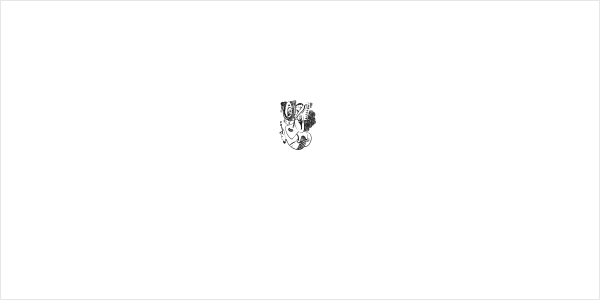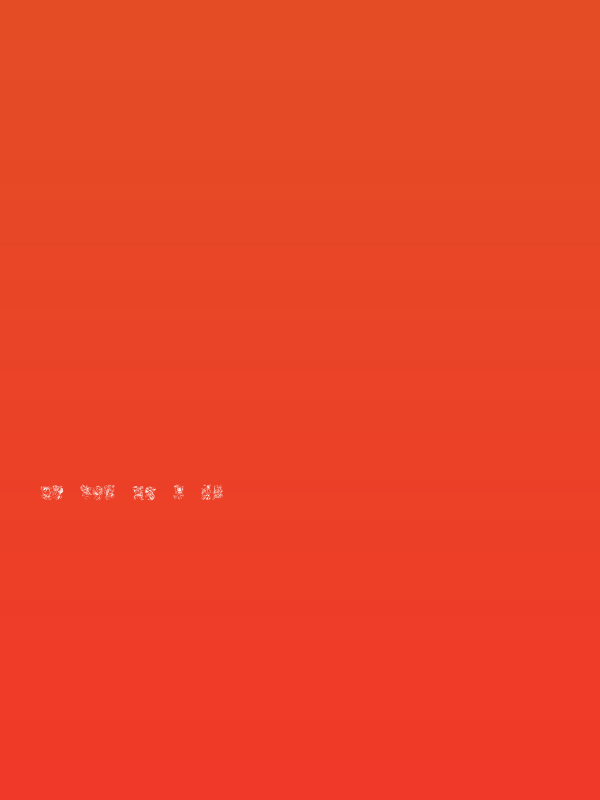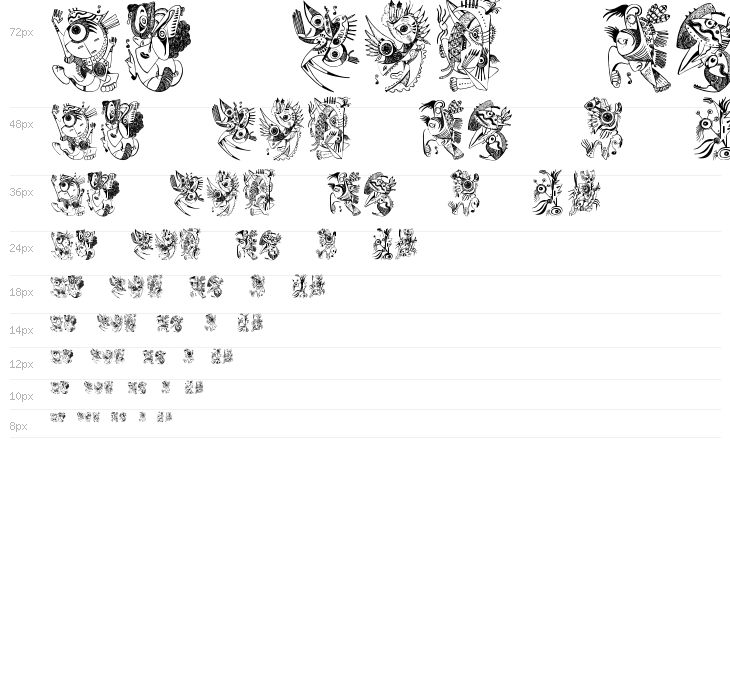
Z-Most Eye 1 Font
Z-Most Eye 1 Description
This font is a highly decorative and artistic representation of the alphabet, where each character is intricately designed with abstract and whimsical elements. The letters are composed of various patterns, shapes, and motifs that give them a unique and playful appearance. The style is reminiscent of surrealist art, with each letter appearing as a miniature piece of artwork. The overall design is complex and visually engaging, making it suitable for creative and artistic projects that require a distinctive and eye-catching typeface.
| Use Case | Logos, Artistic projects, Posters |
| Proposed Projects | Ideal for art projects, creative posters, album covers, and any design work that benefits from a unique and artistic touch. |